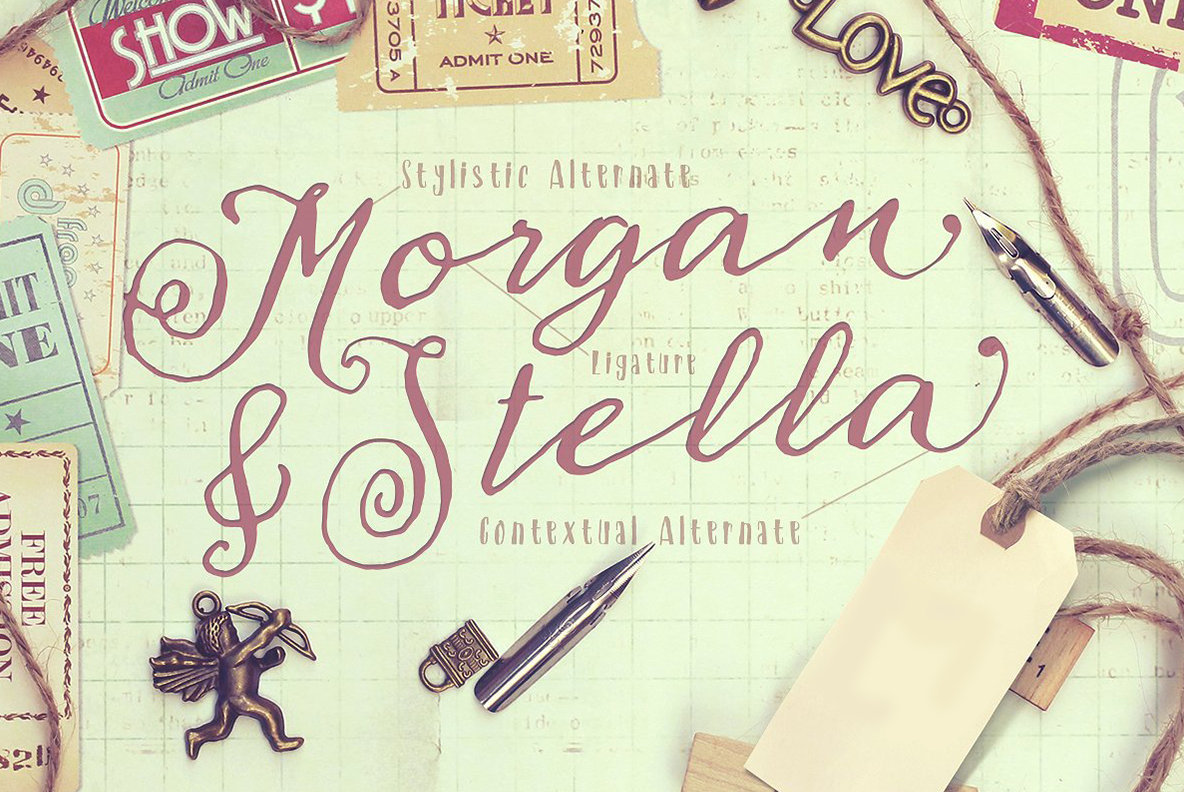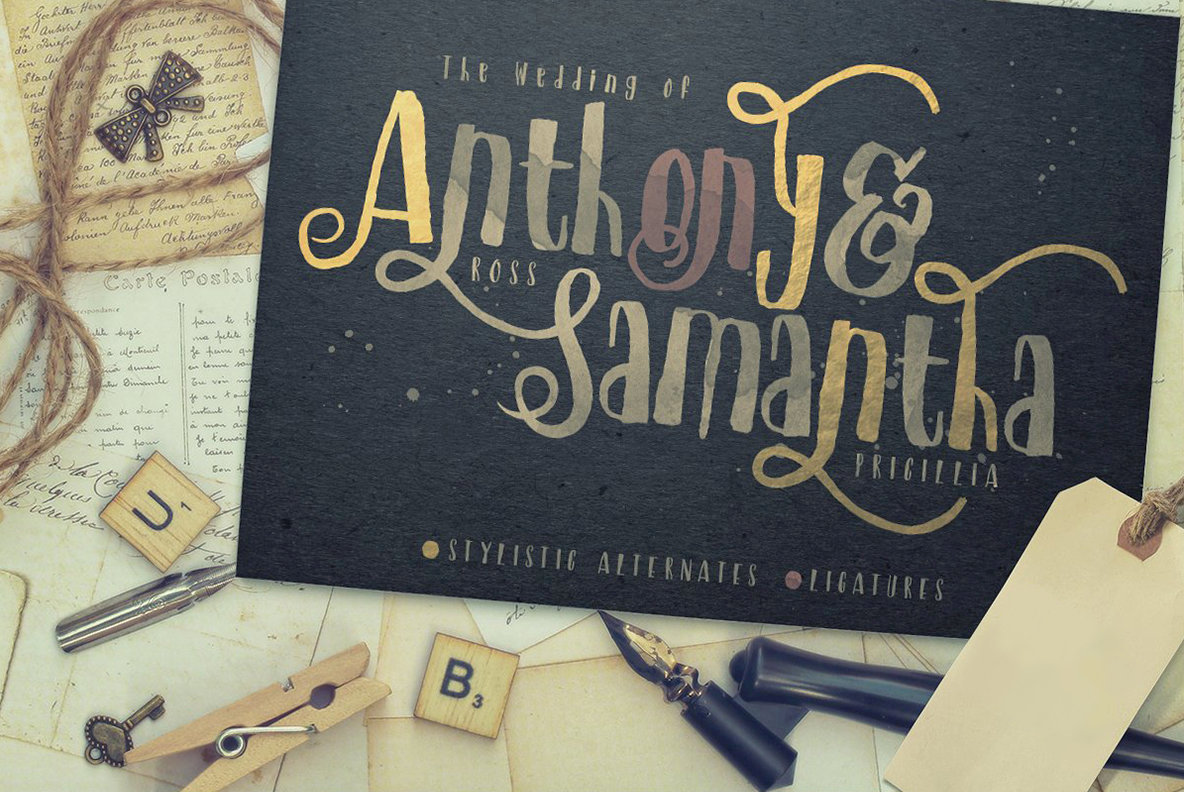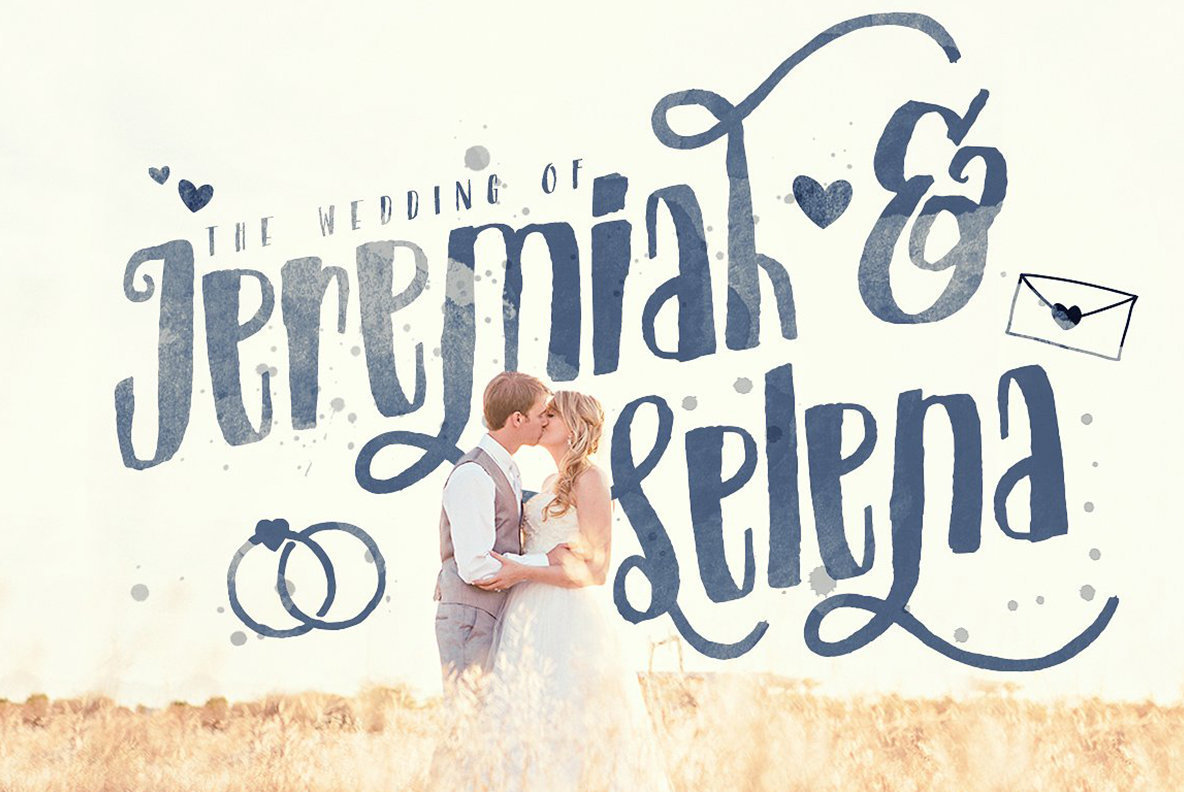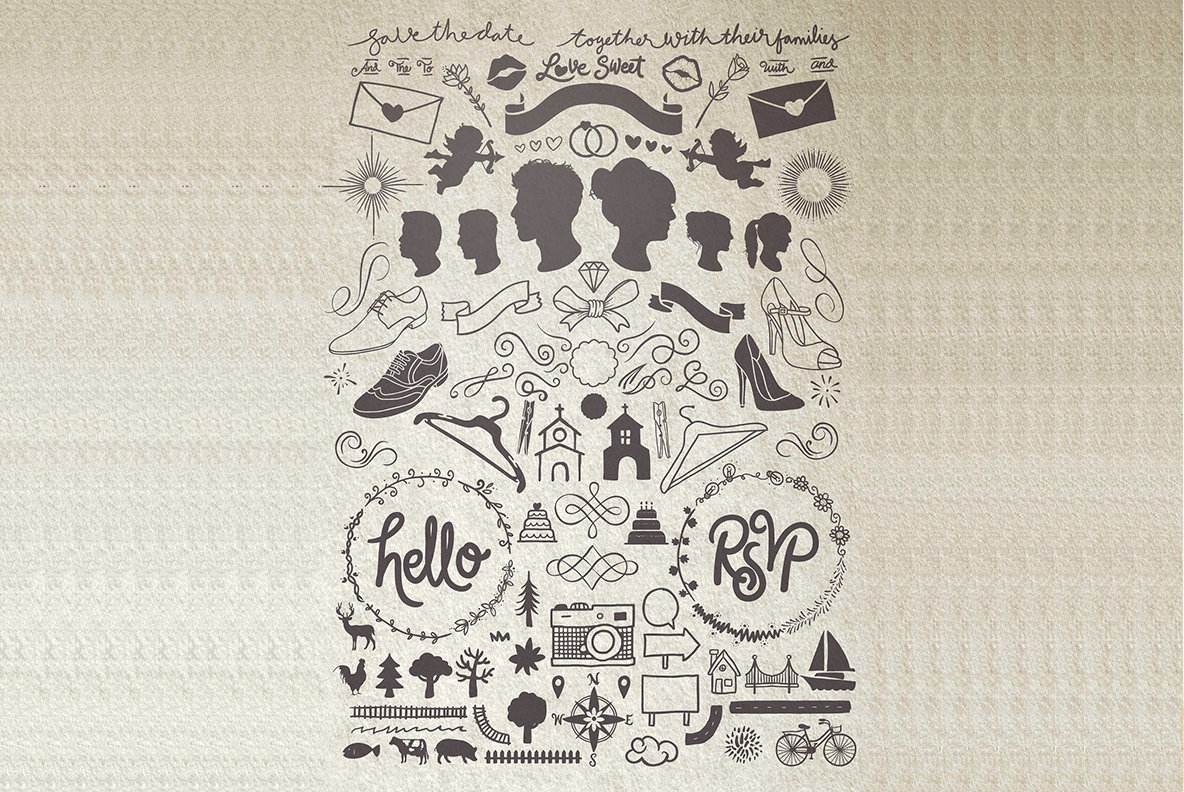
Ladies and gentlemen, we present Just Married! Wedding Pack A bundle of 2 different vibe of typefaces and a huge vector objects & ornaments. Made with love and passion is a definite yes from us, instant lovely guaranteed for any of your wedding project such as an invitation card, display, decorations, scrapbooks, souvenirs, oh please stop me i know your imaginations are more than me, so just play with it ;)
The Bride
A script typeface made using the oblique pen with full of decorative feels on it. Perfect for the Bride and Groom name if you want to type it with a skinny handwriting and far kerning to make it simply romantic and 100% pure love on it.
• Uppercase
• Lowercase
• Stylistic Alternates
• Contextual Alternates
• Standard Ligatures
The Groom
A sans-serif typeface made using the flat brush that dipped into ink, this typeface is a total all-terrain, perfect for the display or Bride and Groom name, but it can be a body text for the wedding invitation itself, play with the spacing and size of it and you will get a sweet vintage handmade design feels on it with still holding the lovely vibe on every letters.
• Uppercase
• Lowercase
• Stylistic Alternates
• Lots of Ligatures
Vector Pack
Contains much of wedding ornaments and object to complete the pure love. So you don't need to be worry about "looks so plain" on your design, because they are made to be there with you ;). It comes with AI, EPS, and PDF format, all of them are a solid vectorized so the image quality are guaranteed.